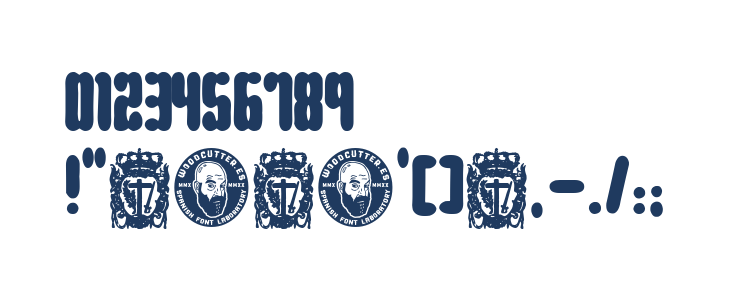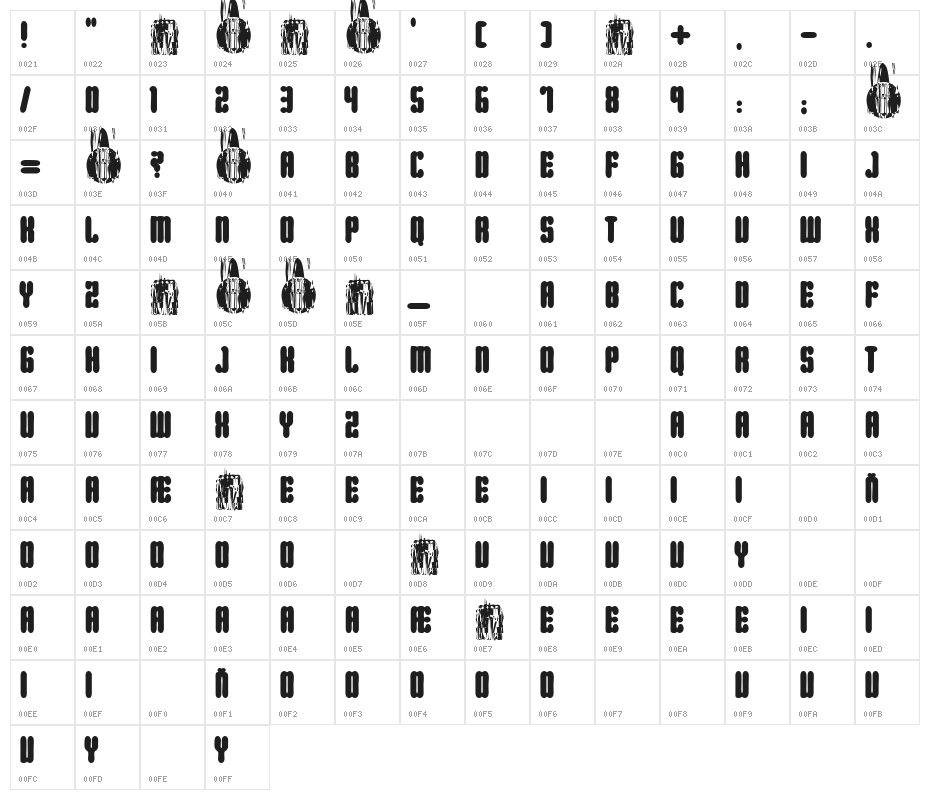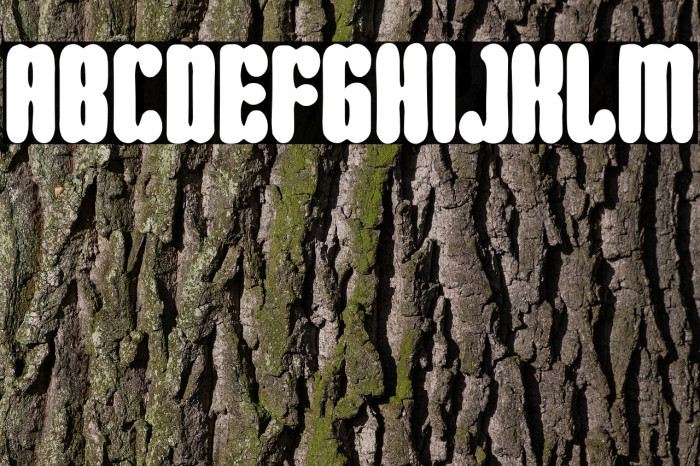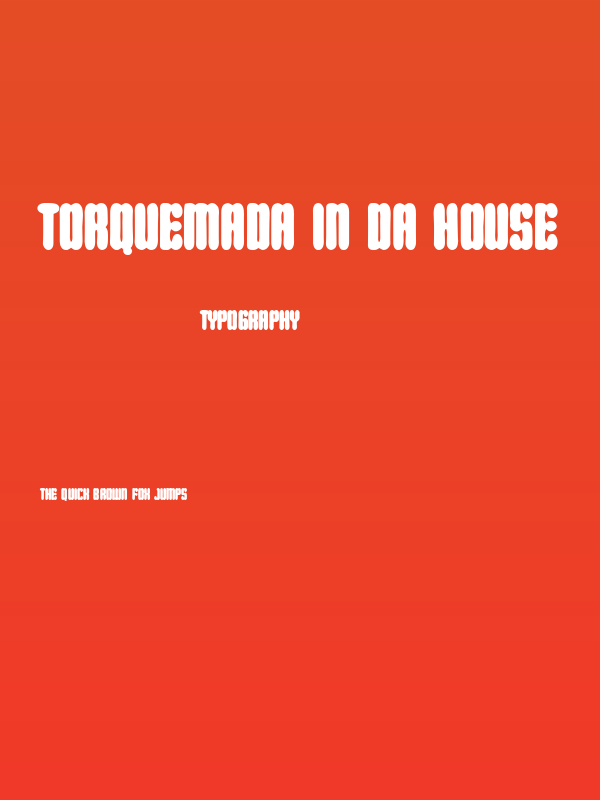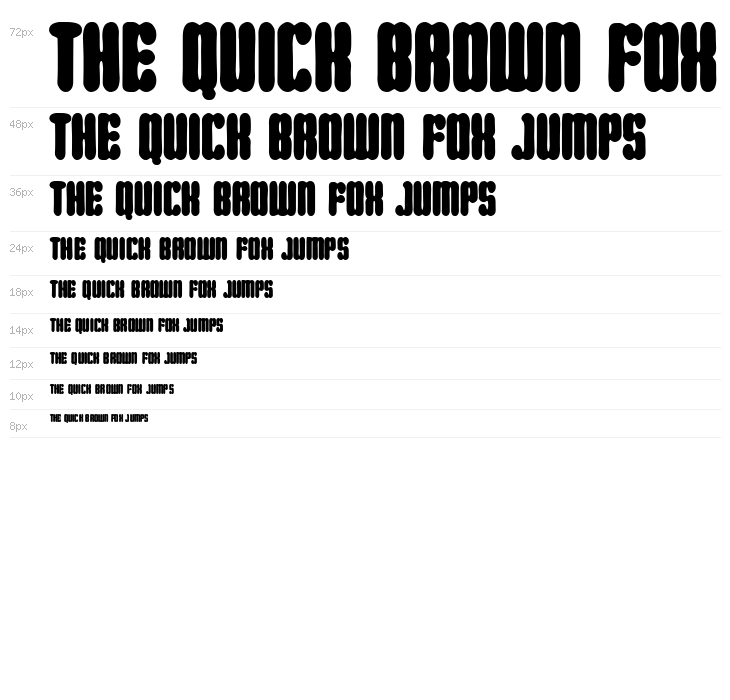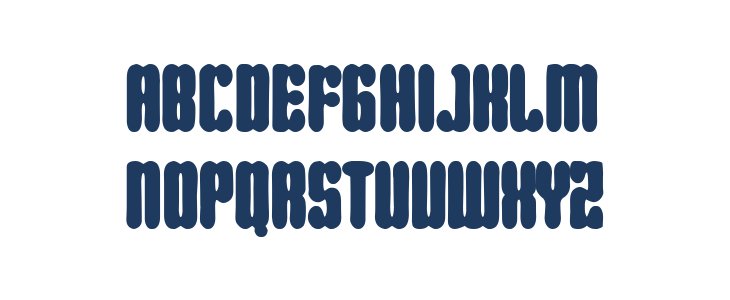
Torquemada in da house Font
Torquemada in da house Description
This font features bold, rounded characters with a distinctively heavy and playful appearance. The letters are uniformly thick, giving them a strong presence and making them highly legible. The rounded edges soften the overall look, adding a friendly and approachable feel. The numbers and special characters maintain the same bold and rounded style, ensuring consistency throughout the typeface. This font is ideal for projects that require a bold statement and a touch of whimsy.
| Overall Style | Playful, Bold |
| Proposed Projects | Perfect for posters, logos, branding, and headlines that need to stand out with a bold and friendly vibe. |